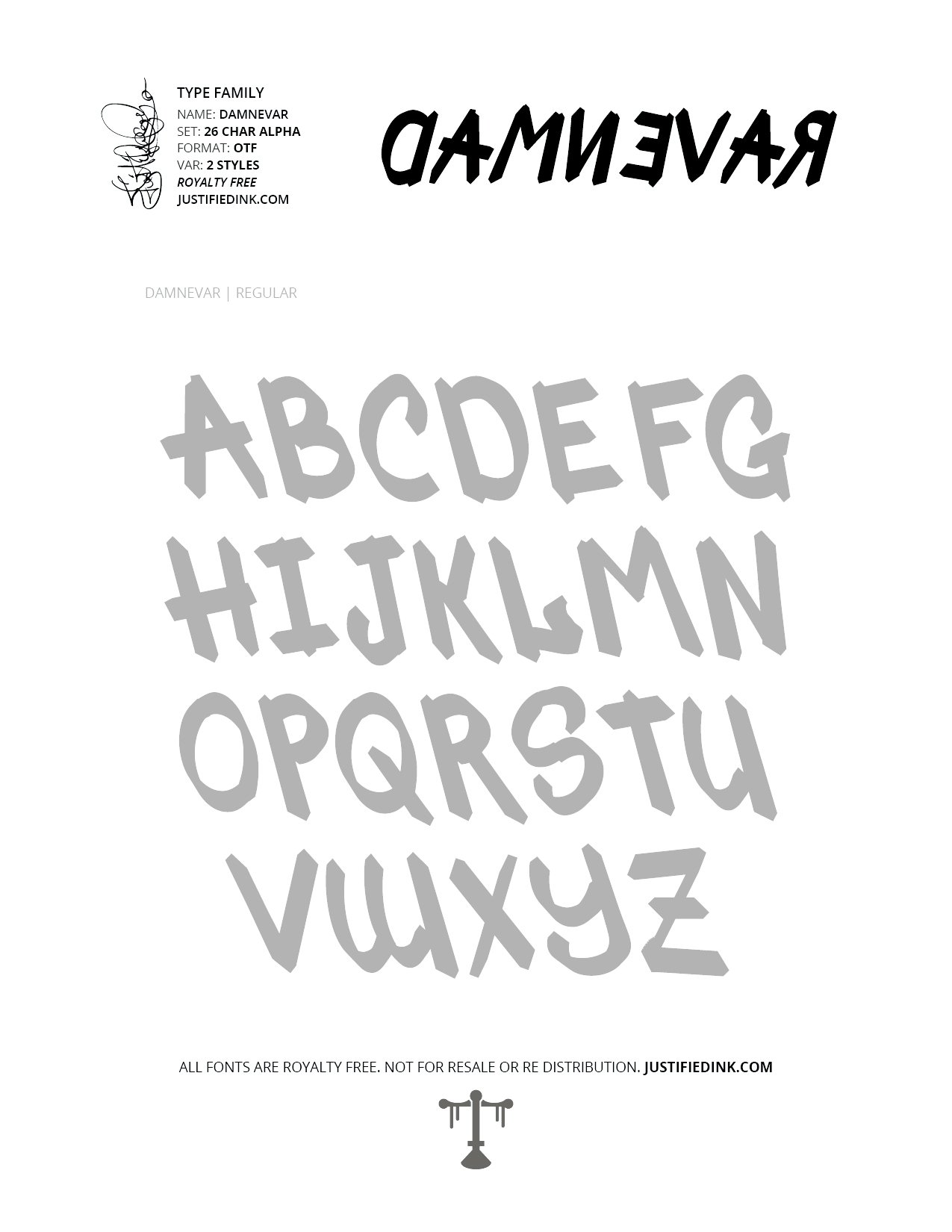
DamNevar (2 styles) - Custom Font by Justified Ink
DamNevar is that sweet spot between of insanity The Shining and The Raven. Versatility is key here with this bold font. You can write frontways and backwards depending on the level of madness you need to convey.